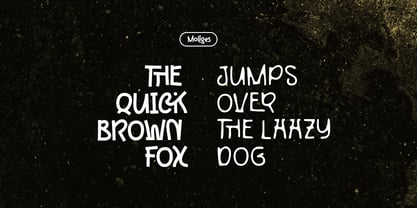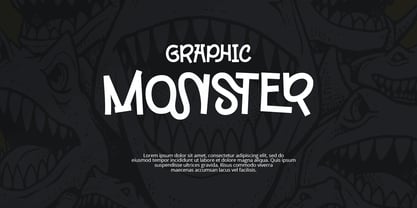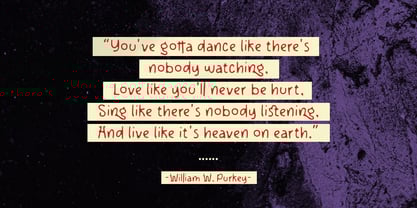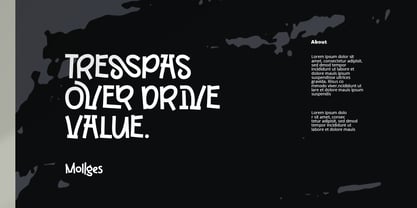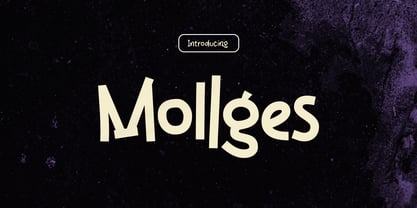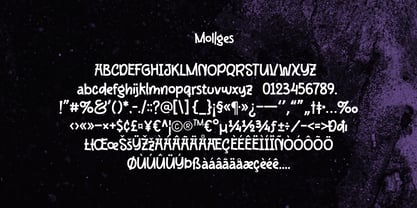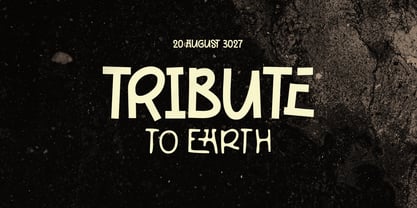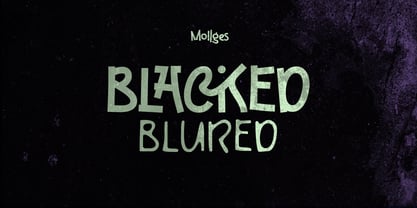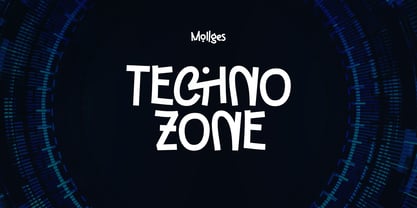
Mollges
by Grontype
The Mollges Font Family was designed by Jarnawi Saja and published by Grontype. Mollges contains 2 styles and family package options.
Mollges is a stylish and unique monoline handwriting font, designed to capture the charm of organic, fluid script. Its continuous, even line width gives it a sleek and modern appearance, making it perfect for a wide range of design applications, from logos to invitations.
The font is enriched with ligatures, providing a more natural and cohesive flow between certain character pairs. This feature enhances the handwritten look, making it ideal for personal branding, quotes, and other creative projects where elegance meets simplicity. With its versatile style, Mollges adds a personal touch to any design, effortlessly combining sophistication and approachability.
Features:
• Unique Handwriting Font
• Creative Ligatures
• Basic Latin Glyphs
• Modern and Stylish
• Numeral and Punctuation
• Currencies
• Multilingual Support